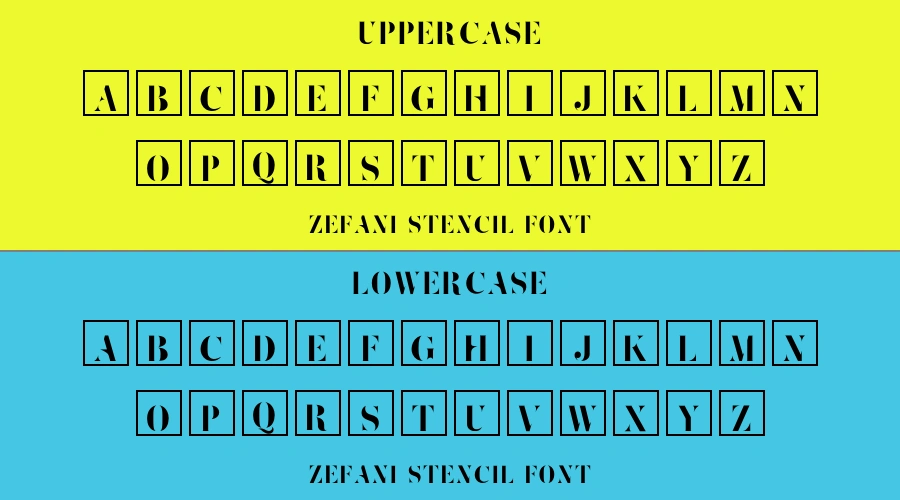
About Zefani Stencil Font
When typographic excellence matters most, Zefani Stencil Font delivers through its thoughtful blend of assertive angles and enduring style. Specially crafted for heritage brands, it offers the personality and creative potential required for sophisticated design work. Every detail serves a purpose.
The character set showcases thoughtful details like rectangular counters alongside functional beginning forms. This proves especially valuable in colophons, where numerical alignment directly influences results. Particular attention was paid to cap height ratio and cultural relevance during development.